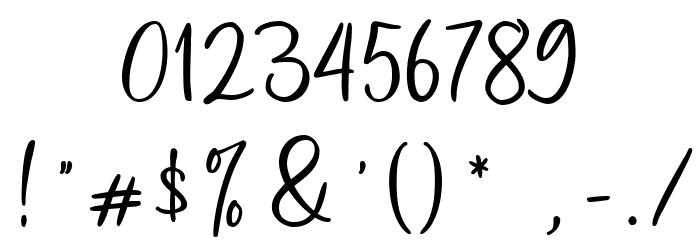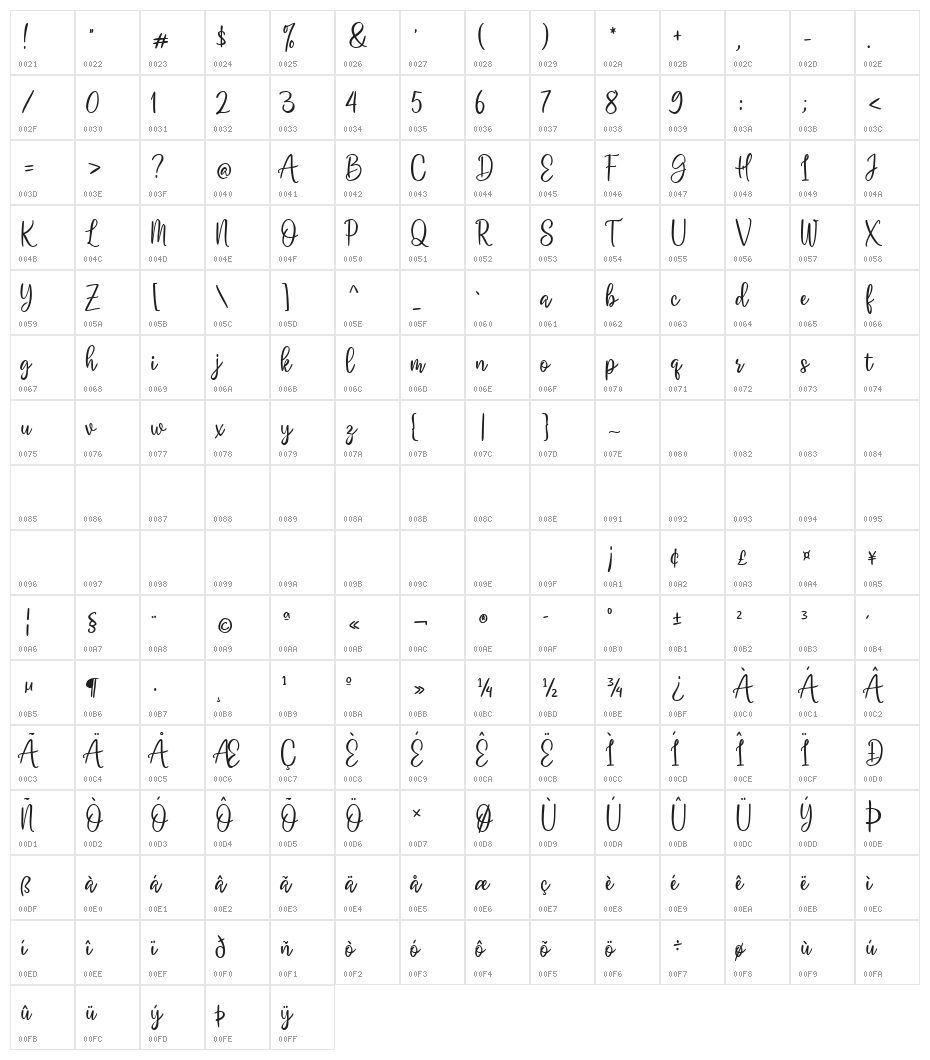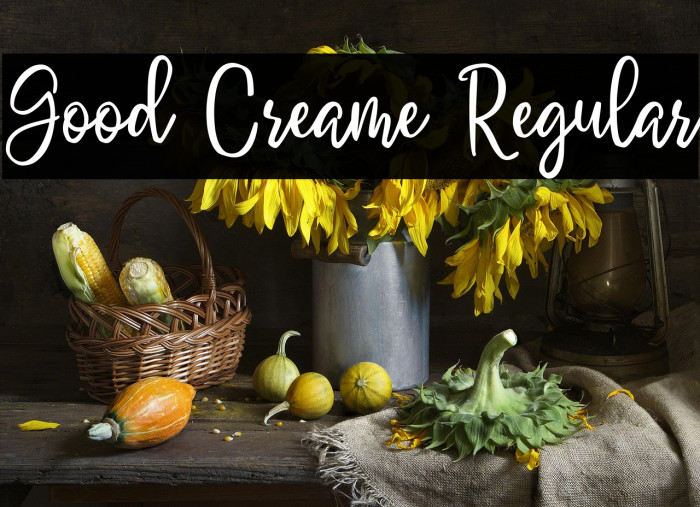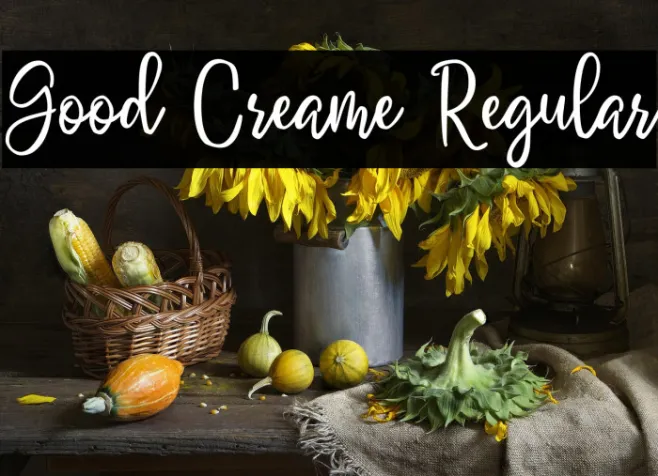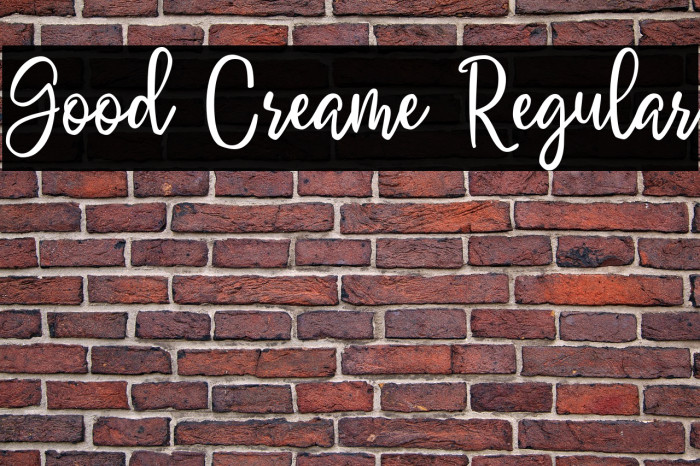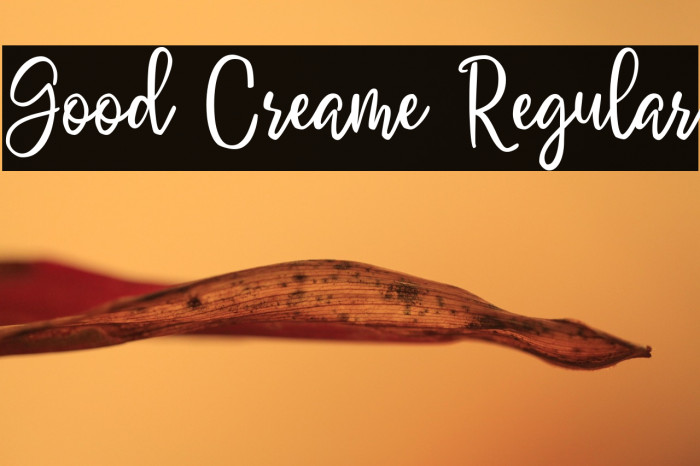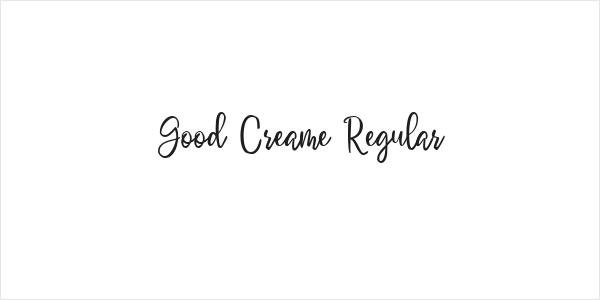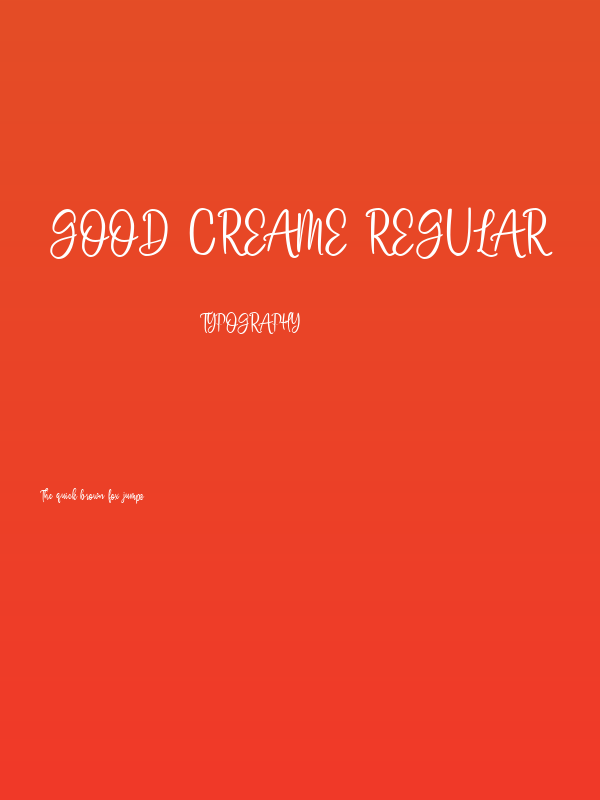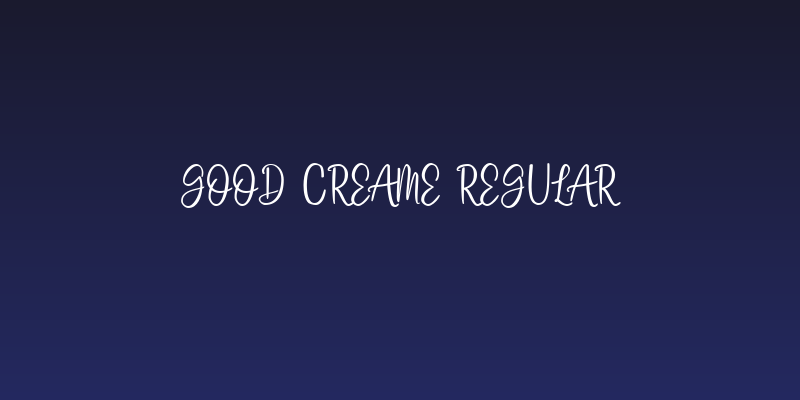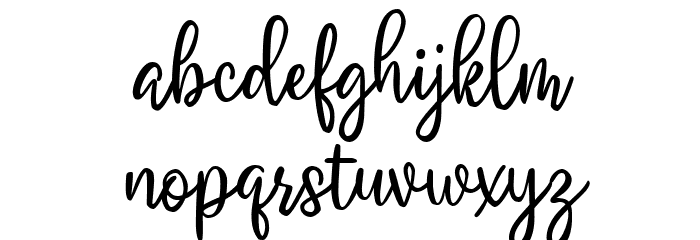
Good Creame Regular Font
Good Creame Regular Description
This font features a playful and elegant script style, characterized by its flowing, cursive letterforms. The uppercase letters are tall and slightly narrow, with a whimsical flair that adds a touch of sophistication. The lowercase letters maintain a consistent flow, with smooth curves and loops that enhance readability. Numbers are well-balanced and align harmoniously with the overall style. Special characters are thoughtfully designed, complementing the font's aesthetic. The font's overall appearance is both modern and classic, making it versatile for various design projects.